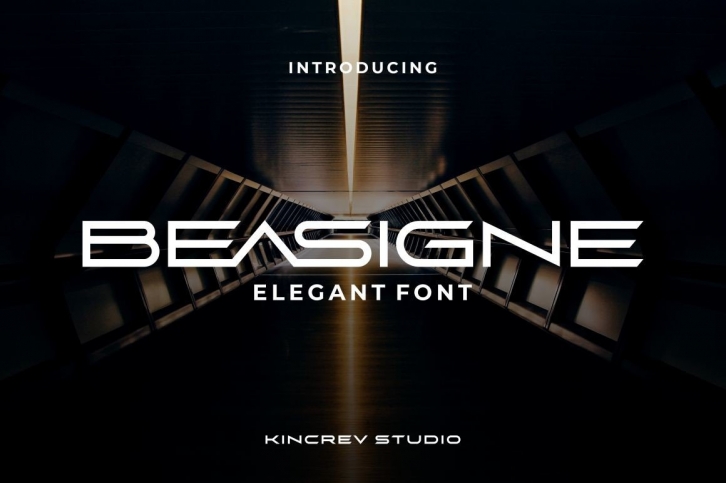
Beasigne is a high-tech and modern display font. This font is ideal for writing web designs, business cards, or pretty much anything else that requires a futuristic touch.